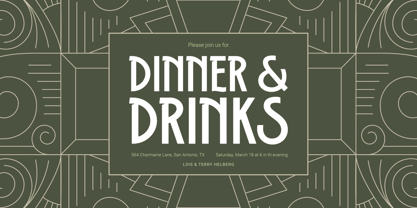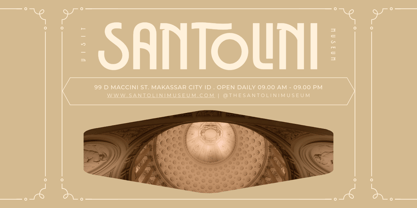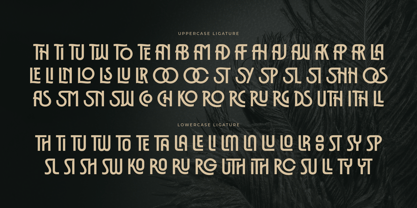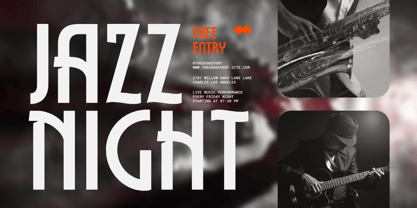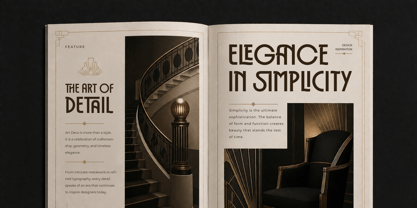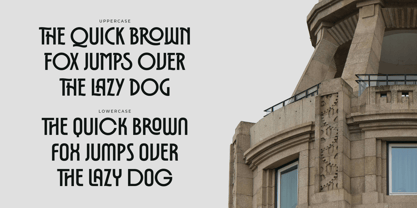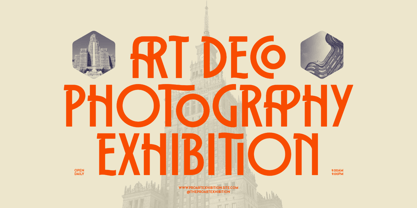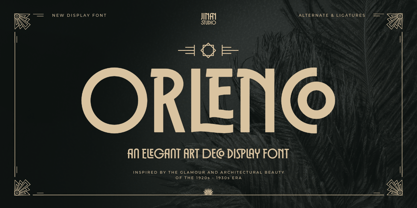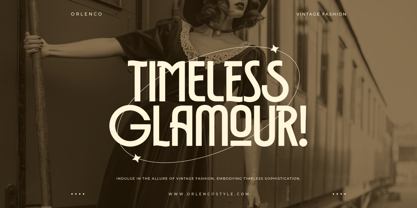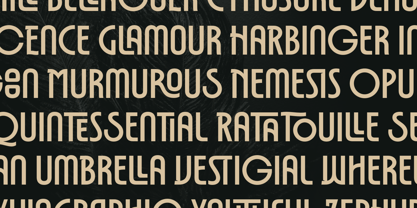
Orlenco
by Jinan Studio
Orlenco is an elegant Art Deco display font inspired by the glamour and architectural beauty of the 1920s–1930s era. Designed with geometric construction, refined curves, and distinctive decorative details, this typeface brings a luxurious vintage atmosphere while maintaining a clean modern presence.
The condensed proportions and stylized letterforms create a strong editorial impact, making every headline feel iconic and sophisticated. Enhanced with artistic ligatures and unique alternate details, Orlenco transforms ordinary typography into expressive visual compositions.
Perfect for:
• Luxury branding
• Editorial & magazine design
• Logo design
• Packaging
• Fashion campaigns
• Posters & advertising
• Hotel & restaurant identity
• Wedding stationery
• Art Deco themed projects
• Premium social media content
Features
• A set of uppercase and lowercase glyphs
• Number, symbol, and punctuation
• Multilingual Support
• Alternate
• Regular, rounded, oblique